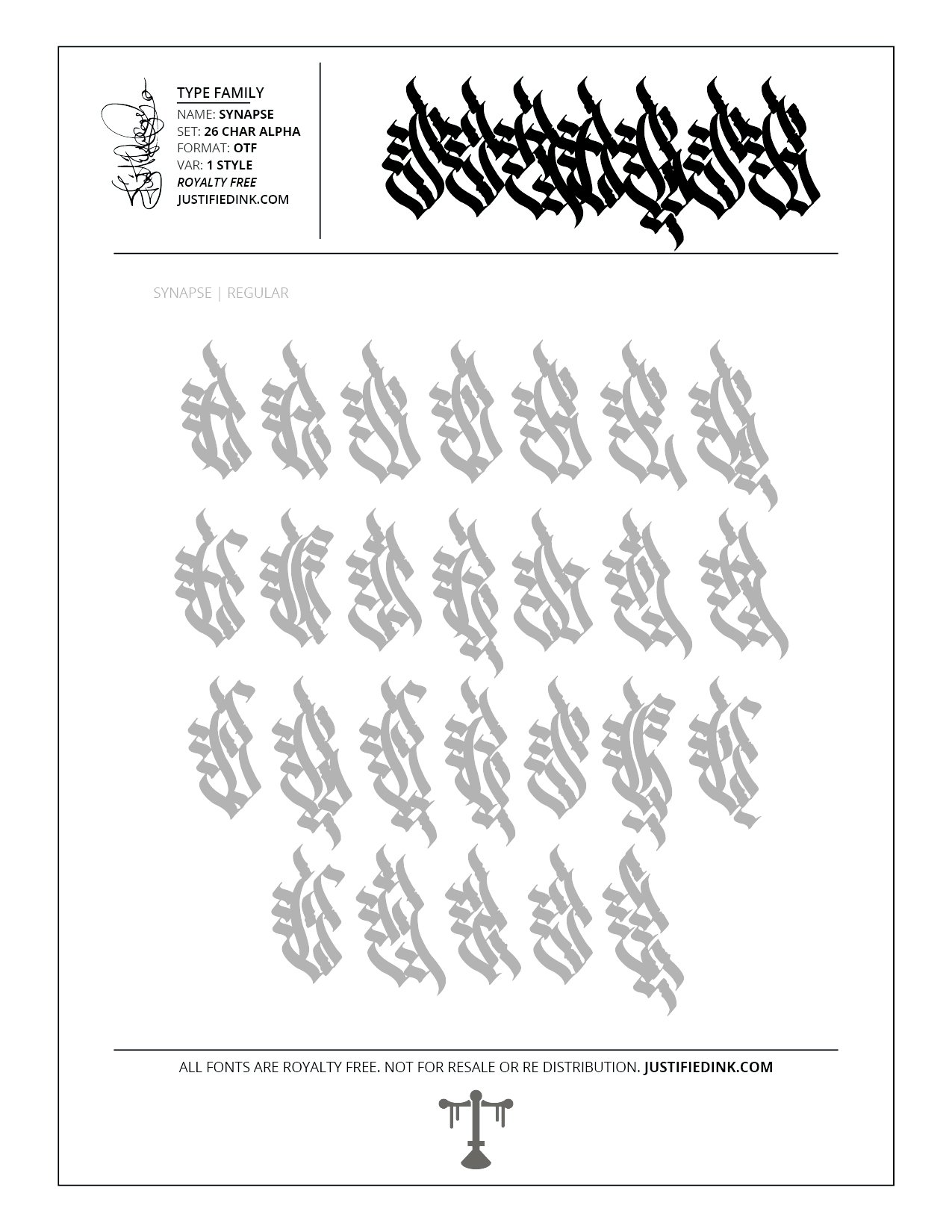
Synapse (1 style) - Custom Font by Justified Ink
NAME: Synapse
Its the connections that make Synapse pop off. Spaced out or overlapping theres no start or end to where Synapse loop around.
This font is part of the collection by Justified Ink, called Blackletter II. After 15+ years creating, I began to focus on building personal libraries of my work. The Blackletter II Collection was created through writing page after page, and countless hours over a 2 year span of daily practice. Each font from this collection has been hand drawn, manually vectored, and custom set as a type-able font. It comes in a full set of 26 char alpha. Each font family has variations in styles and/or non-alpha chars.